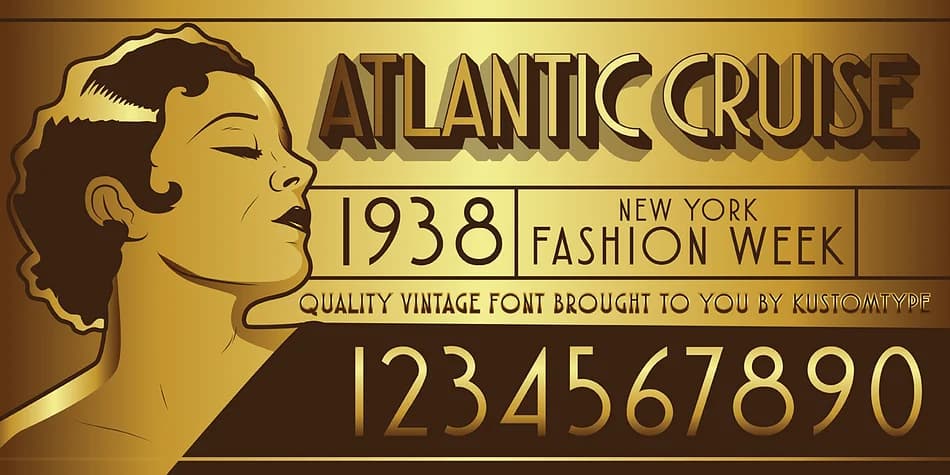
Picture a sleek 1950s travel agency, its windows crowded with vacation posters and glossy magazine spreads announcing weekend cruises and transatlantic voyages to distant, romantic ports. Atlantic Cruise, designed by Kustomtype, is the typeface built for that exact moment in visual culture. Inspired by vintage cruise line advertisements and mid-century editorial design from airport novels and colorful travel brochures, it captures that era's nostalgic energy while using optical correction to ensure readability at any size.
This decorative font excels in specific applications where that mid-century mood becomes part of the story. Consider it for vintage poster art in boutique galleries, mid-century restaurant menus and wine lists, retro luxury packaging for specialty brands and artisanal products, and travel-brand identity work. The optical corrections embedded throughout the letterforms keep everything legible at large display sizes, which is where most decorative faces stumble and lose proportion. You get multiple weights included, so you can layer contrast and emphasis while respecting the font's distinctive, confident personality throughout your project.
Atlantic Cruise Font is a decorative font that shines as a display or heading face. Pair it with a clean sans-serif or serif font for body text β the contrast creates a clear hierarchy while the two styles stay balanced and easy to read.